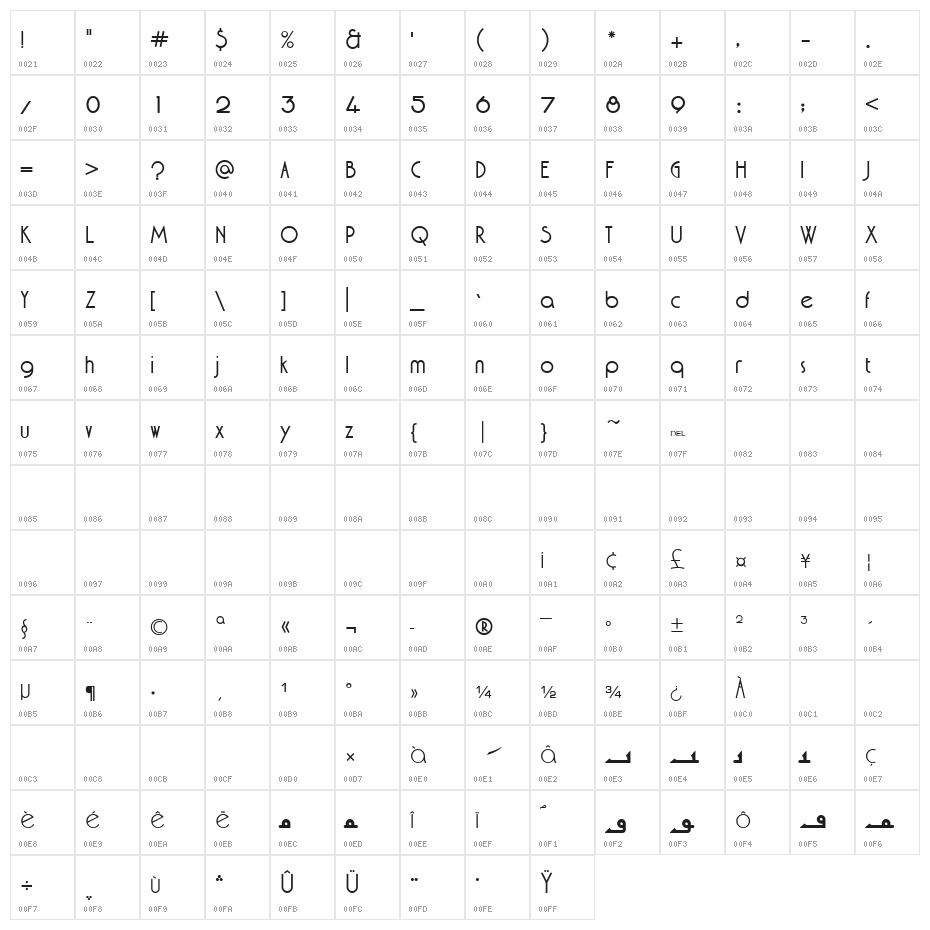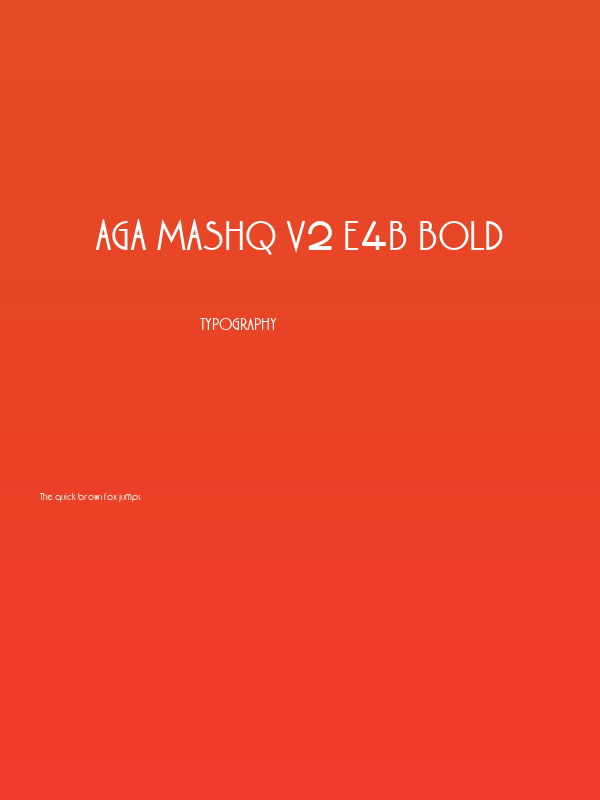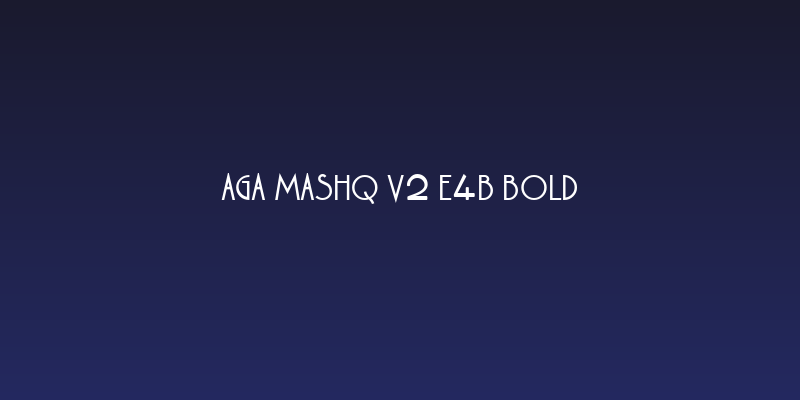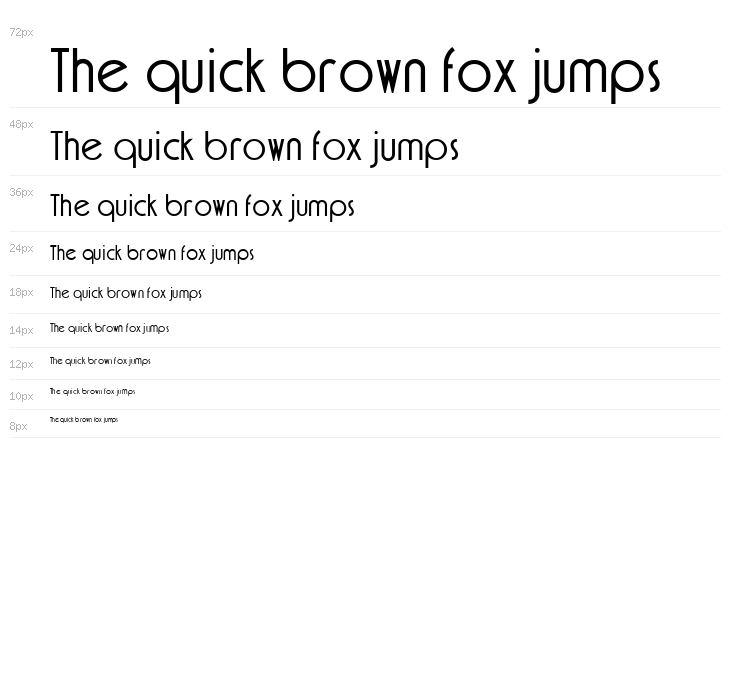
AGA Mashq V2 E4B Bold Font
AGA Mashq V2 E4B Bold Description
This font features a bold, geometric design with clean lines and a modern aesthetic. The uppercase letters are characterized by their uniform height and consistent stroke width, creating a harmonious and balanced appearance. The lowercase letters maintain the geometric style, with rounded edges and smooth curves that enhance readability. The numerals are distinct and easy to distinguish, following the same geometric principles. Special characters are well-integrated, maintaining the overall style and ensuring versatility in various applications. This font's boldness and clarity make it suitable for impactful designs.
Use CaseHeadlines, Logos, Branding
Proposed ProjectsIdeal for branding, advertising, headlines, and digital media projects that require a modern and bold statement.